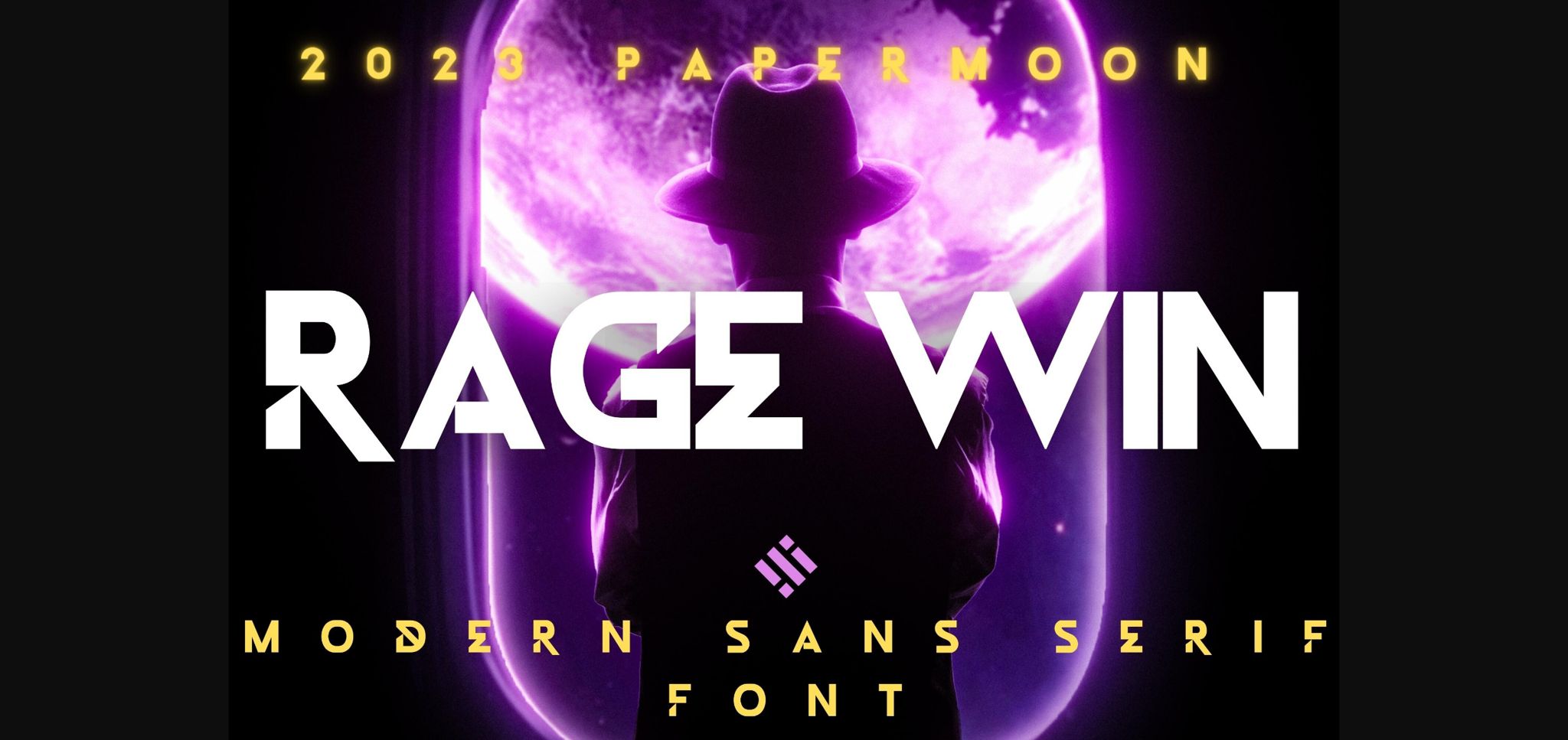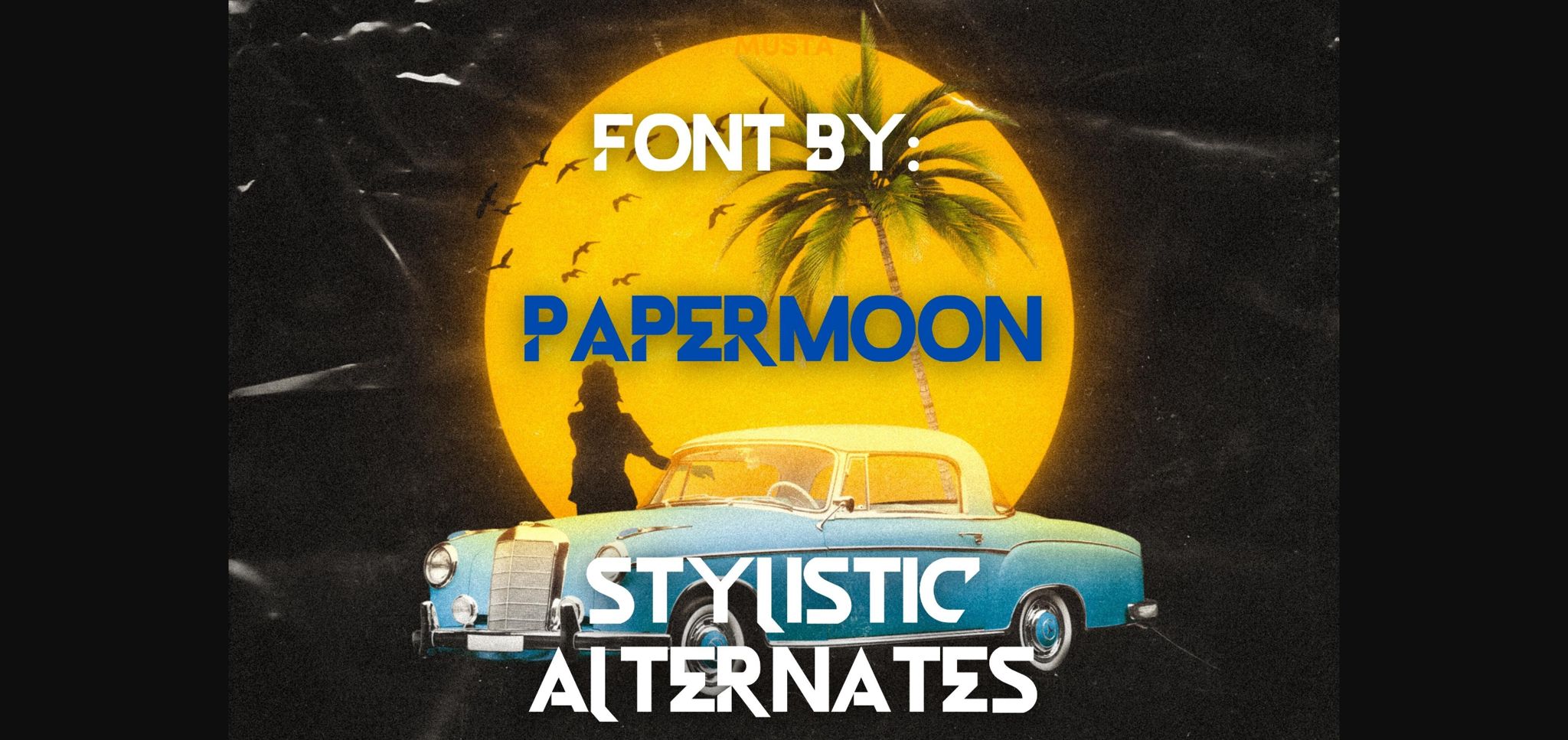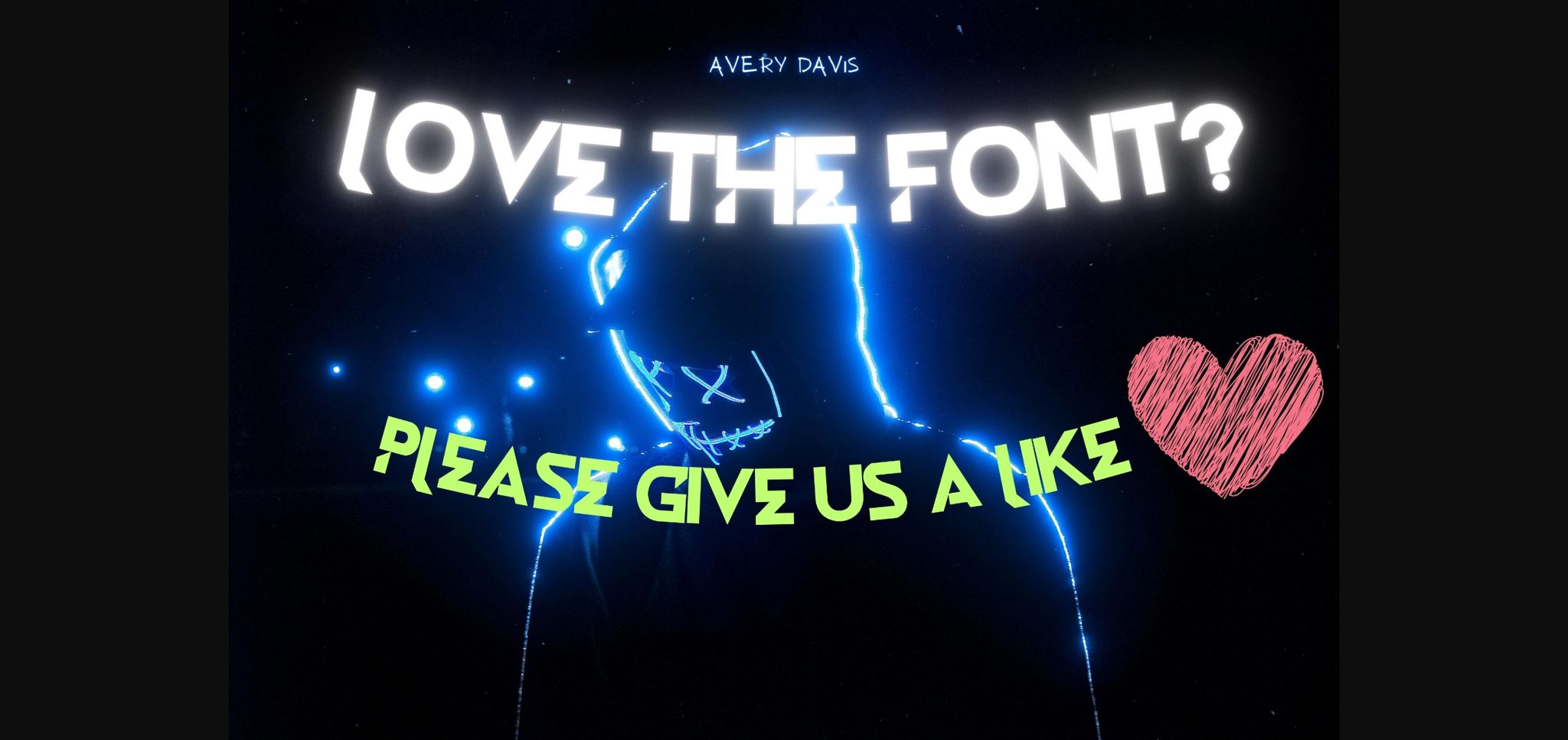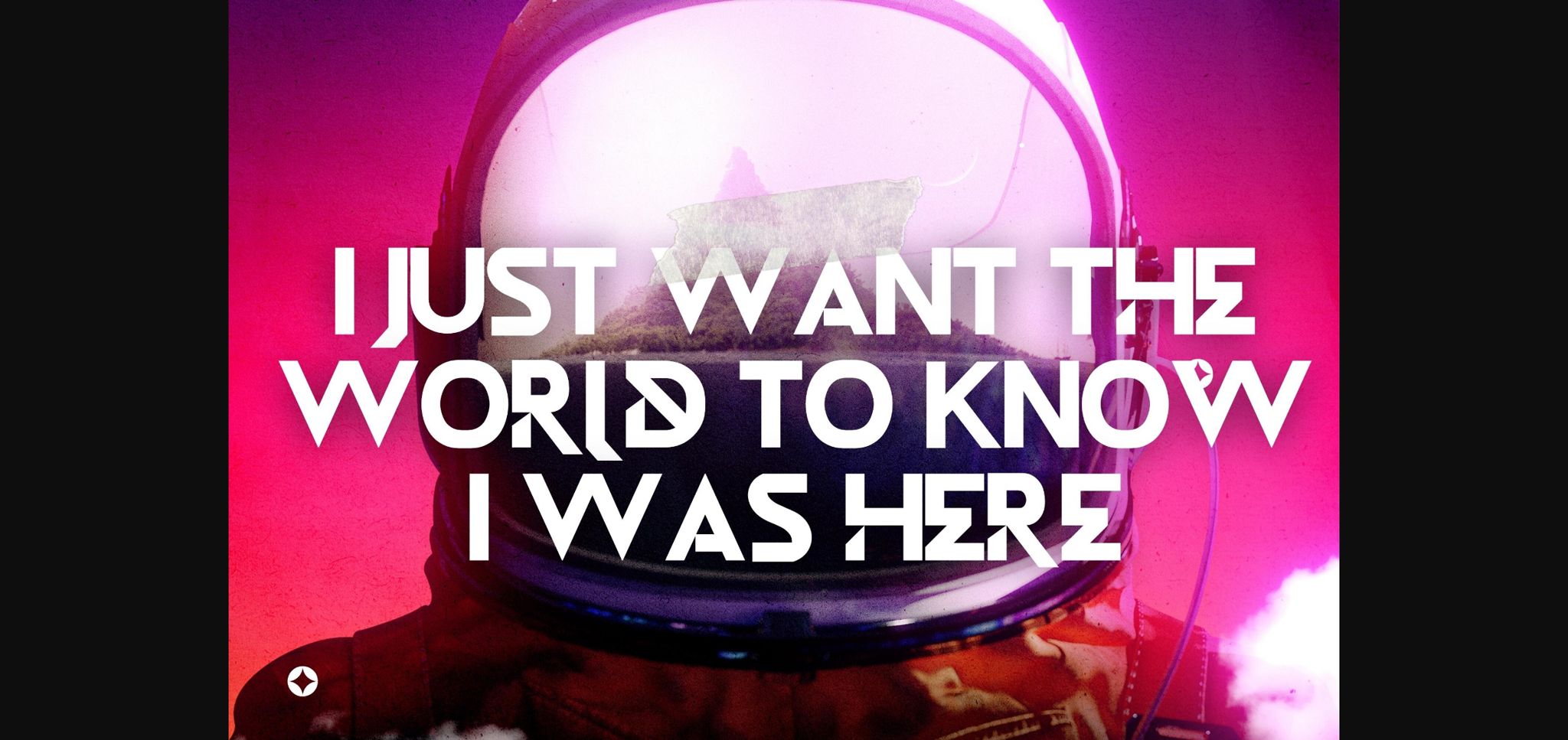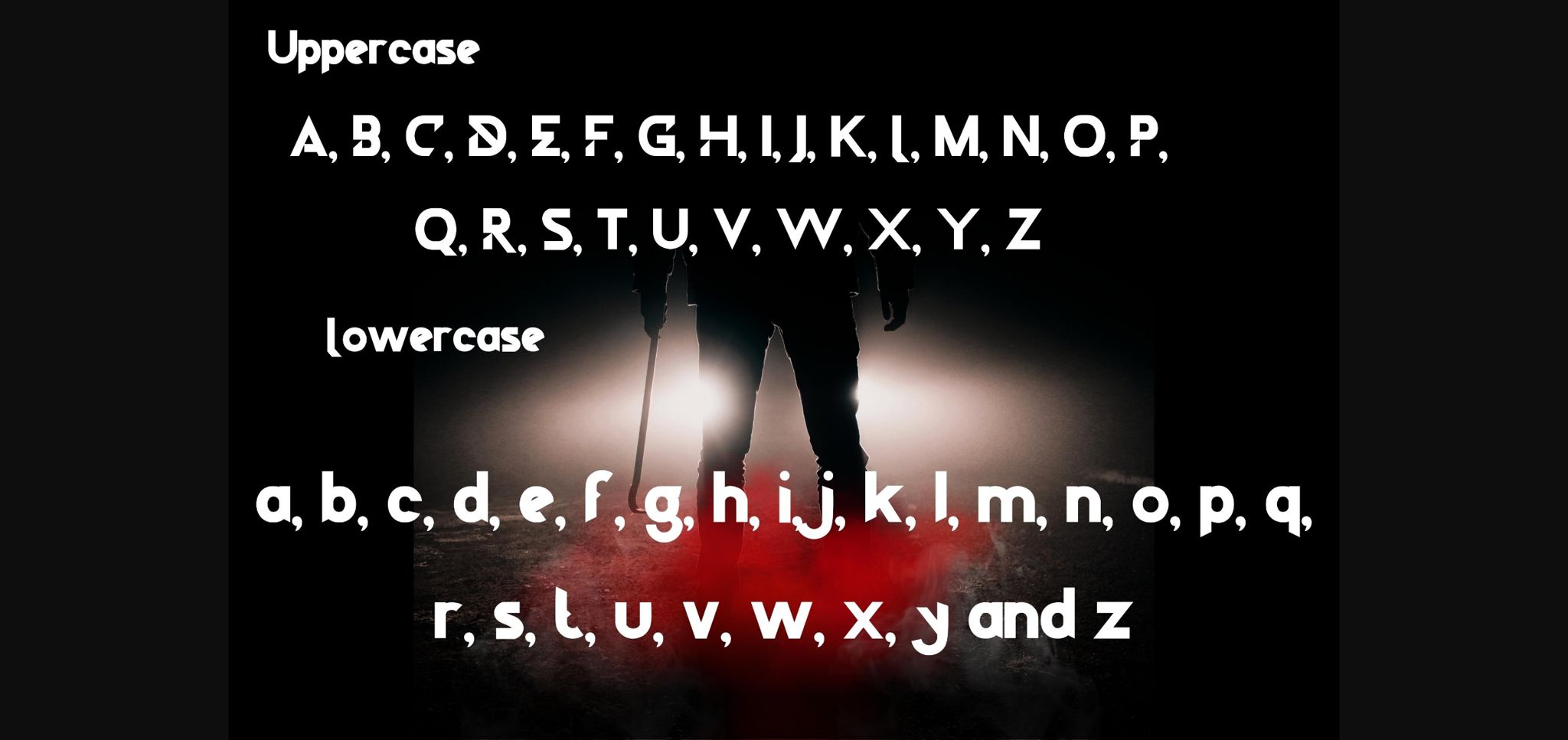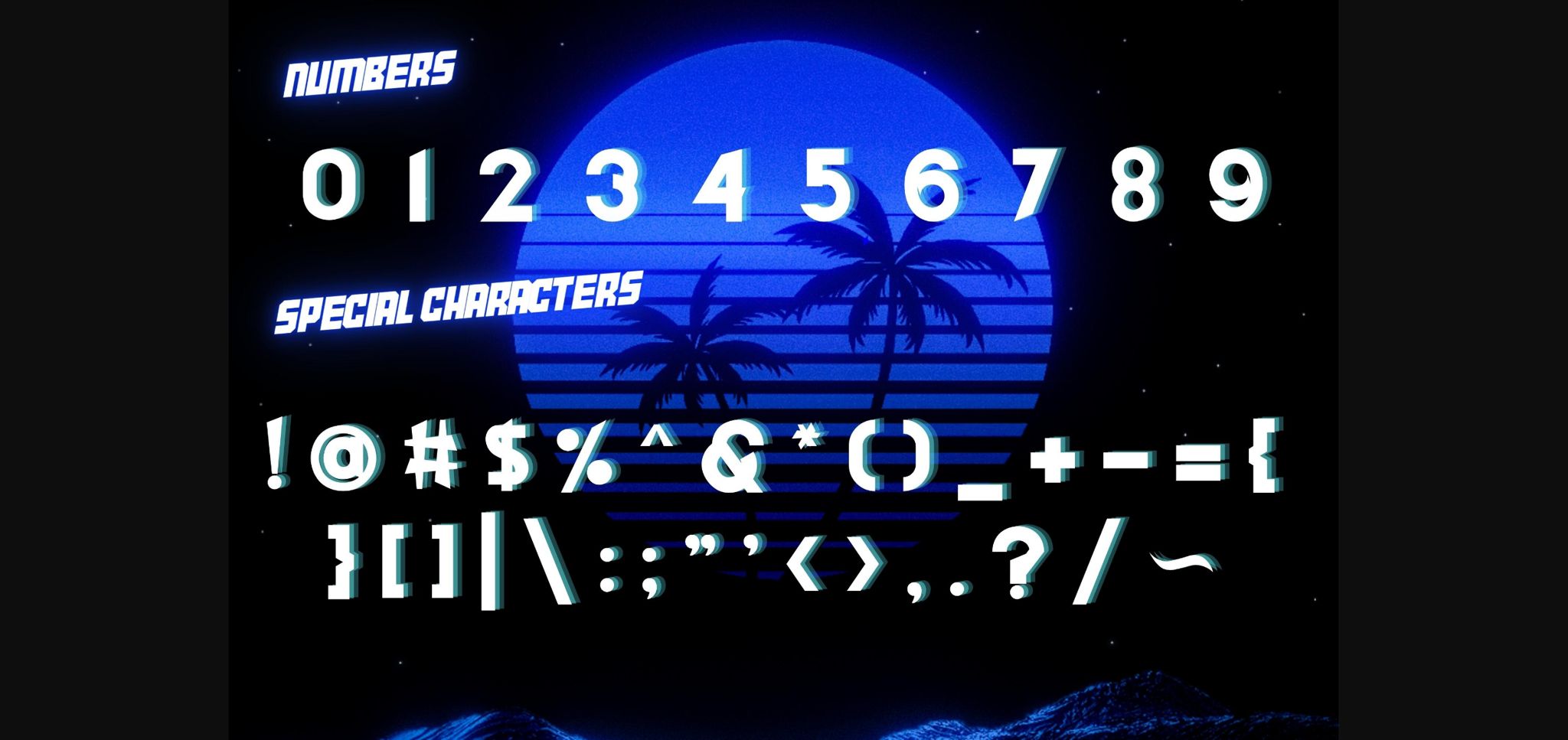
Rage Win Font
About Rage Win Font
Rage Win is an electrifying modern sans-serif font that’s set to ignite your design projects! The Rage Win brings a dynamic and contemporary edge to your creative work.